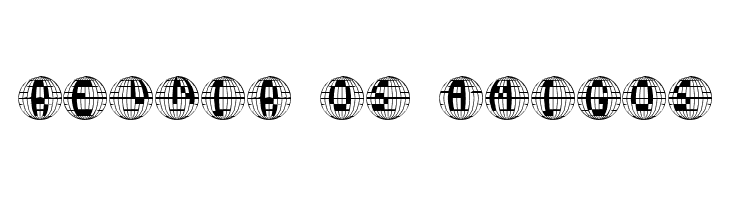
Cafeina Dig_v2 Normal Font
- Font: Cafeina Dig_v2 Normal
( Fonts by Caffeen Fonts - www.swank.ca/caffeen/fonts/ )
A futuristic, disco-inspired font with segmented, reflective characters.